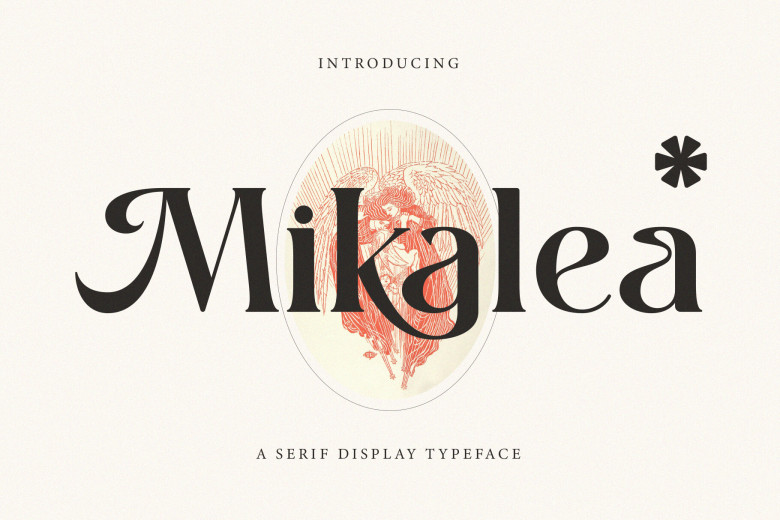
Mikalea Font
Mikalea is an elegant and contemporary serif font with a stylish modern appearance, which offers both luxurious and elegant characteristics for use in projects of any kind, such as logos and websites, modern designs branding identities social media quotes wedding stationery – and much more!
Mikalea Serif Font